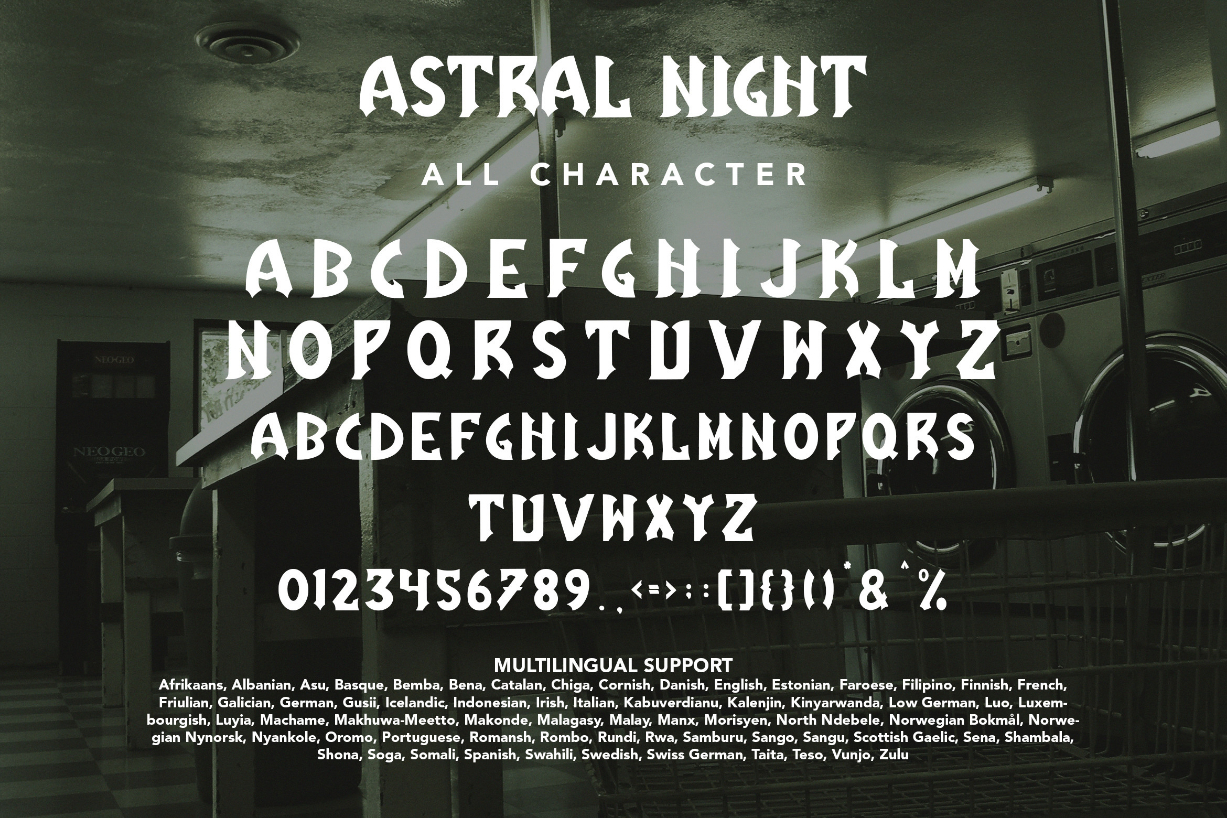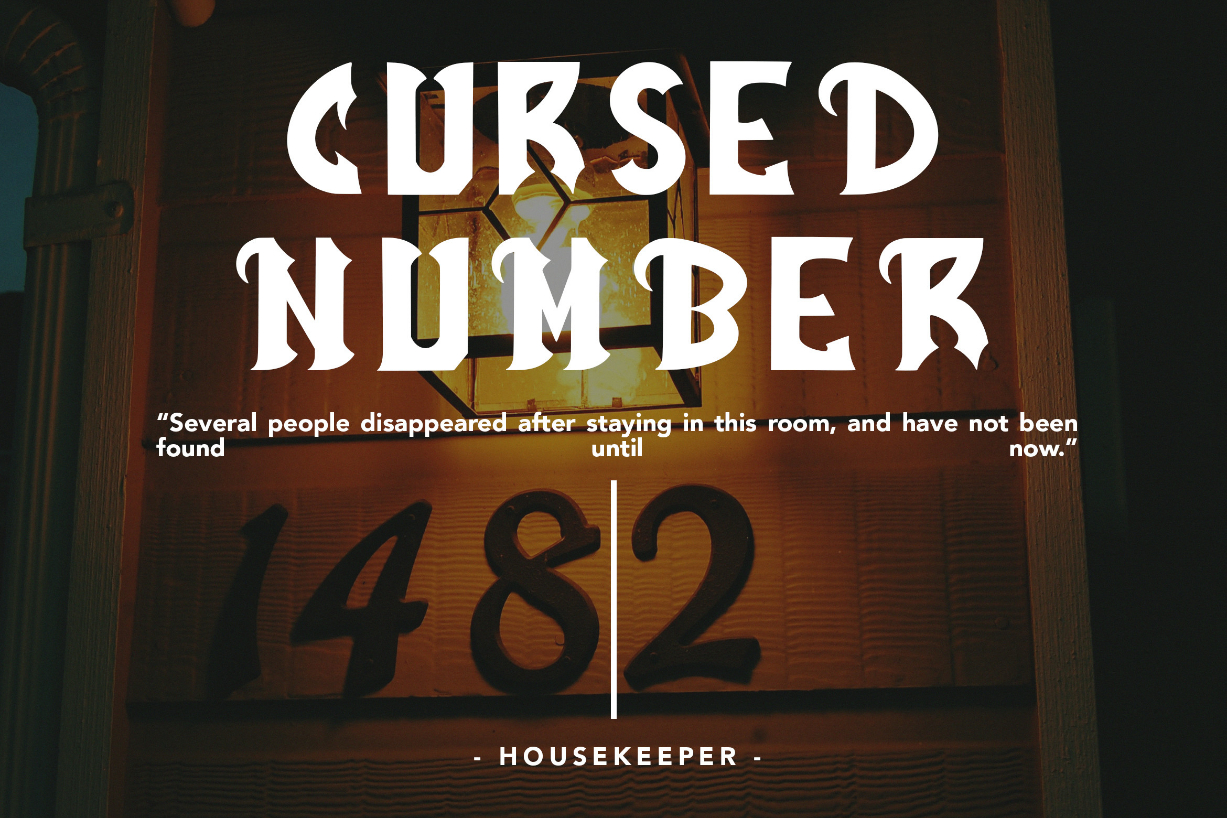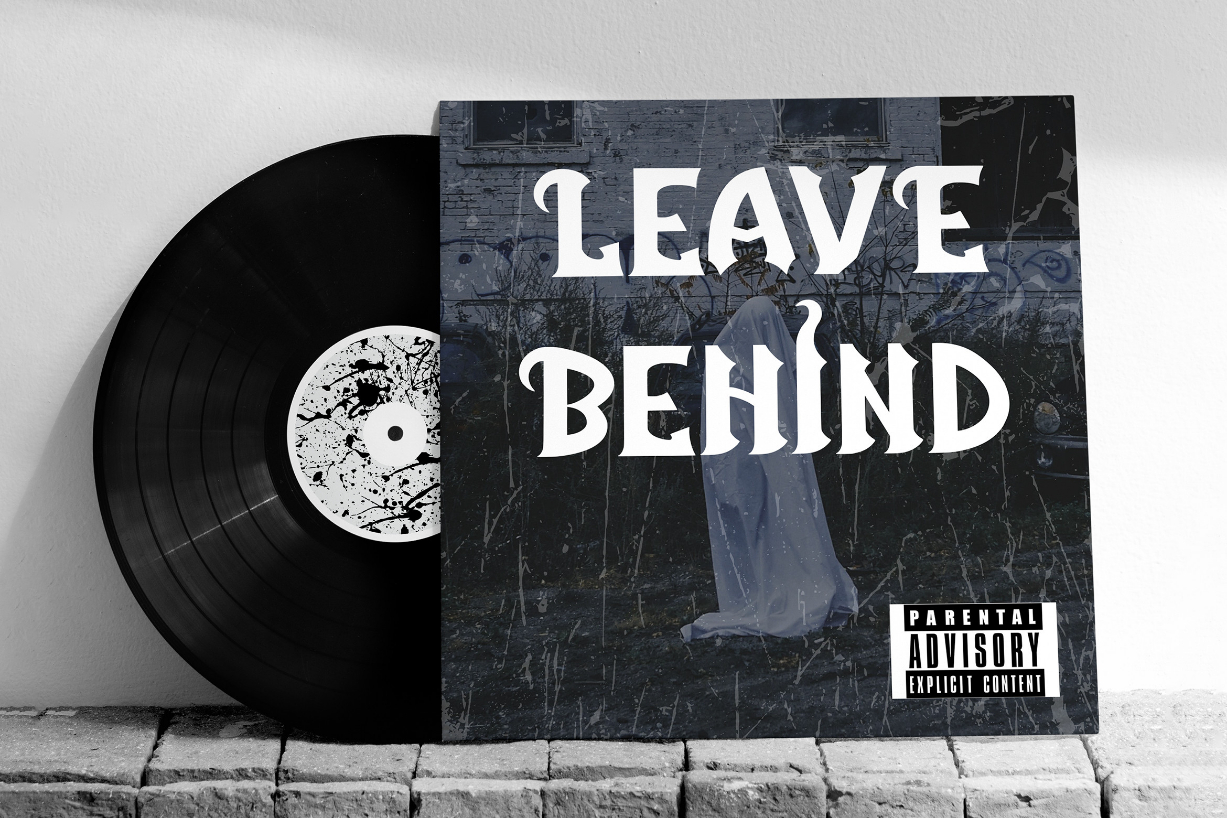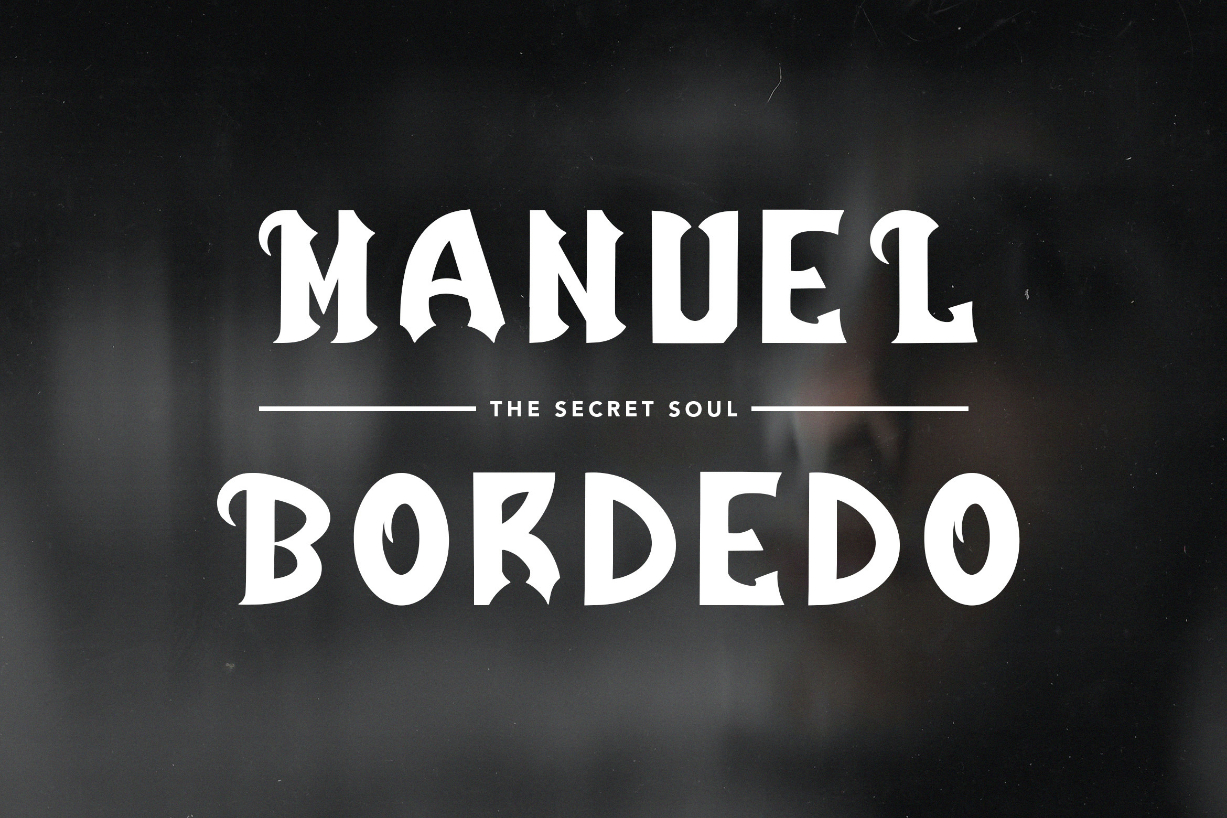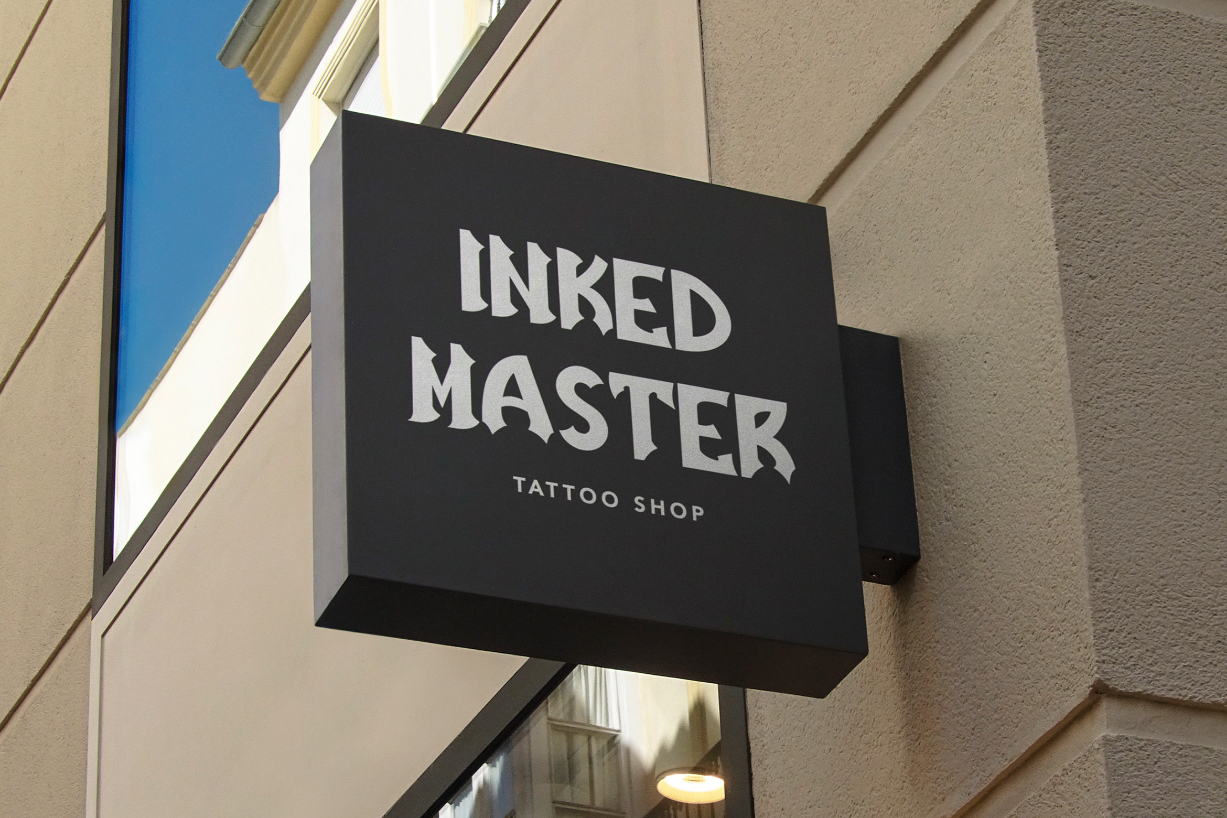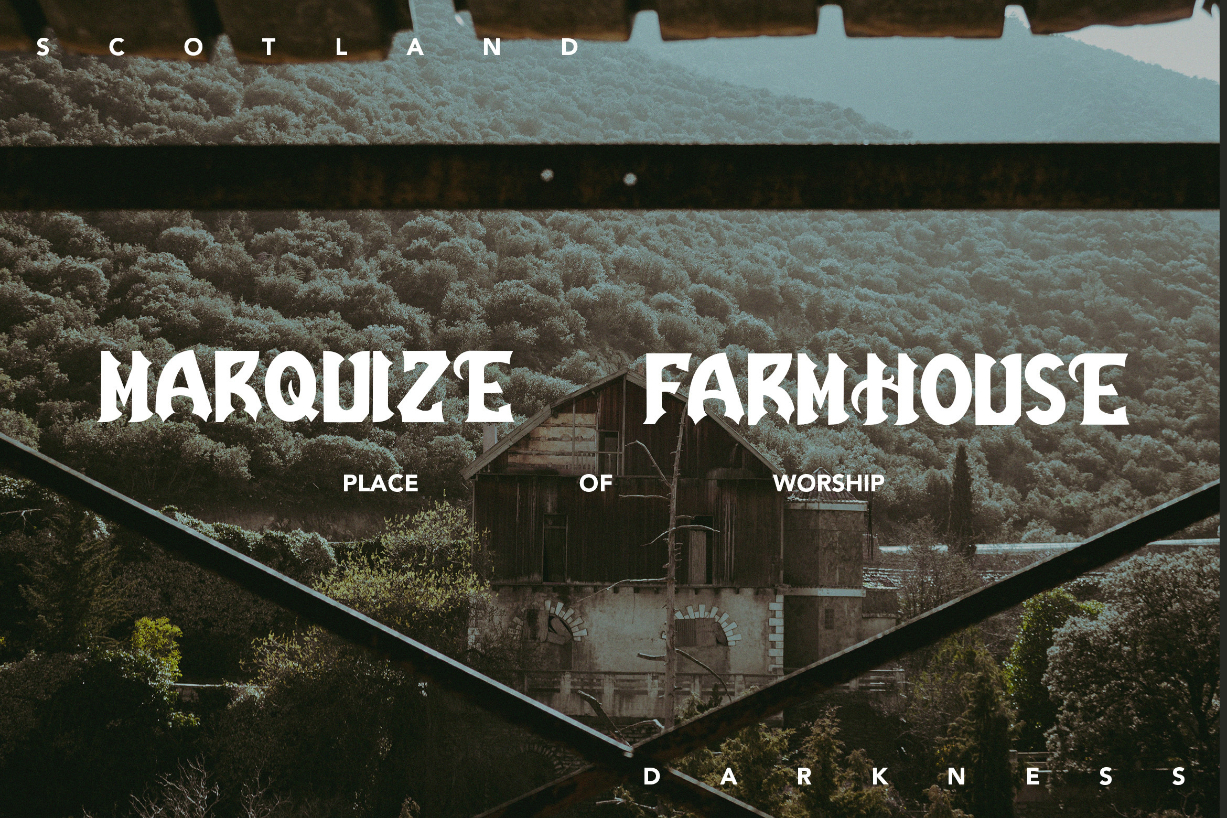
Astral Night Font
About Astral Night Font
Astral Night – A Blackletter Typeface inspired by gothic and horror styles.  Because of its unique shape, this font is perfect for any project with a more dark or vintage theme.